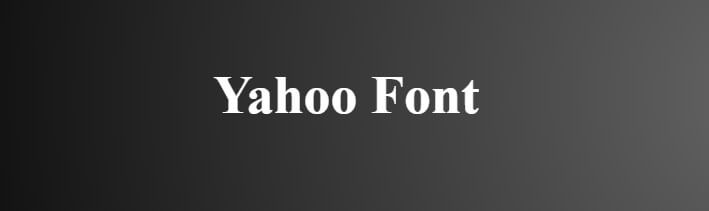
Yahoo font becomes designed via Daniel Gauthier and used for the primary time by Yahoo. This is honestly an awesome font, that is used within the predominant logo of the web page of Yahoo.
This is a brandname font. The organization owns products like yahoo portal, Yahoo seeks, yahoo mail, Flickr as well as the long-gone scrumptious. You may use font anywhere you want.